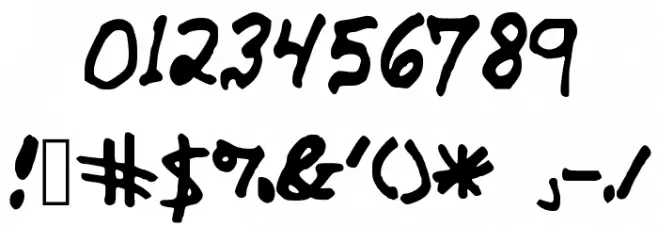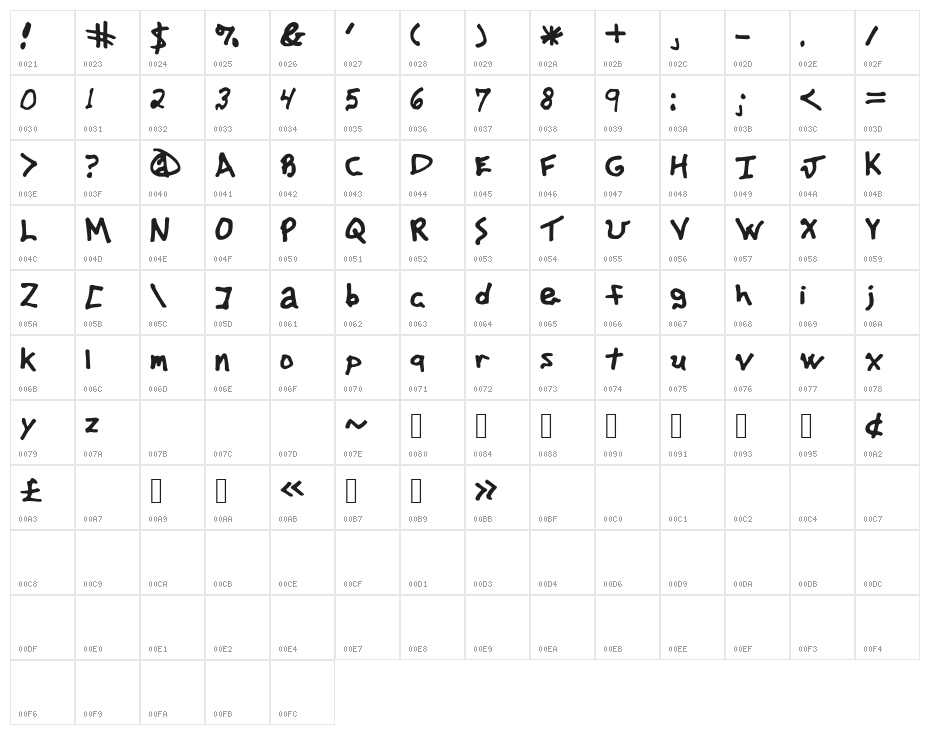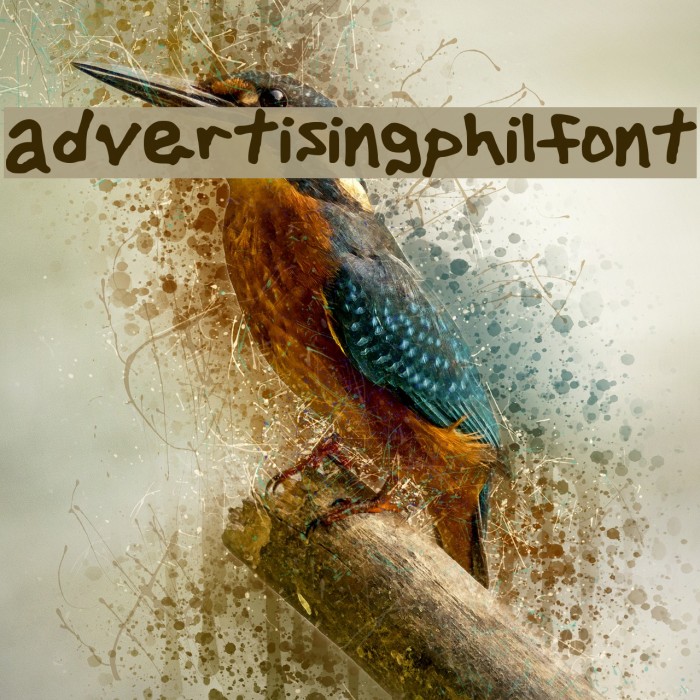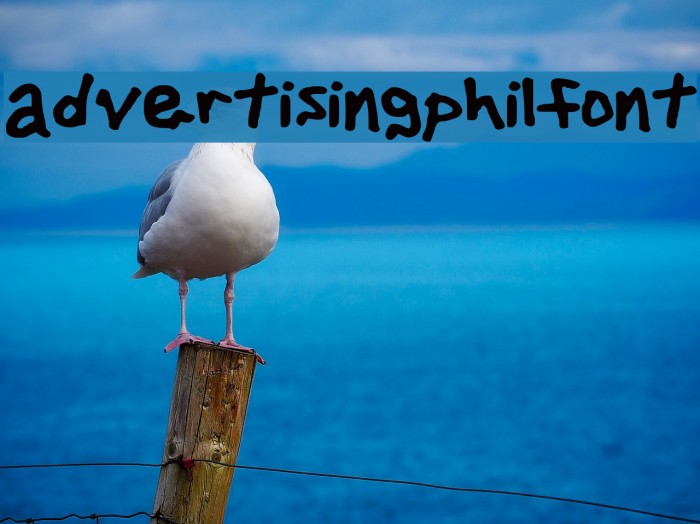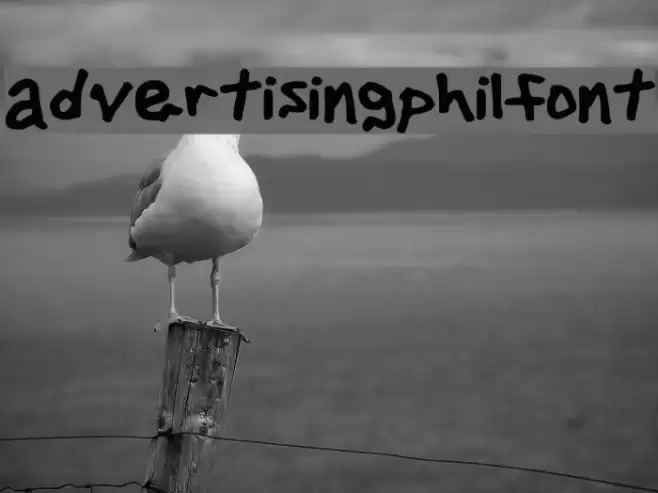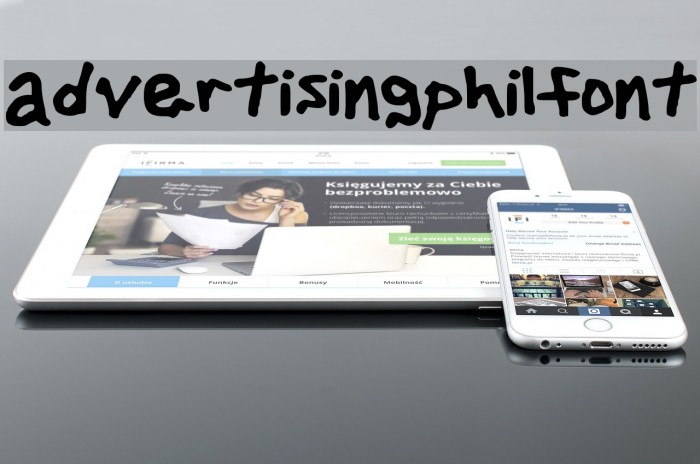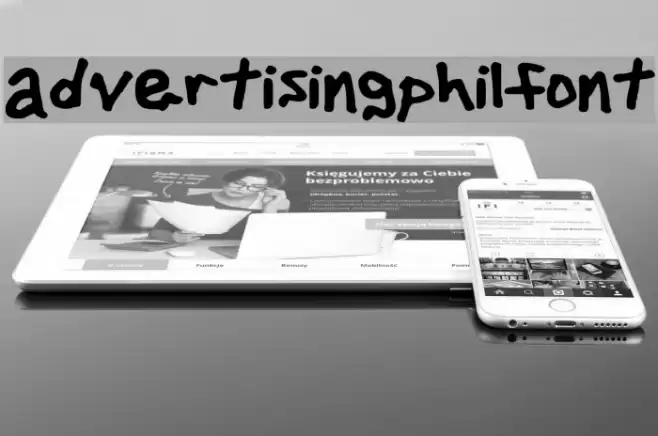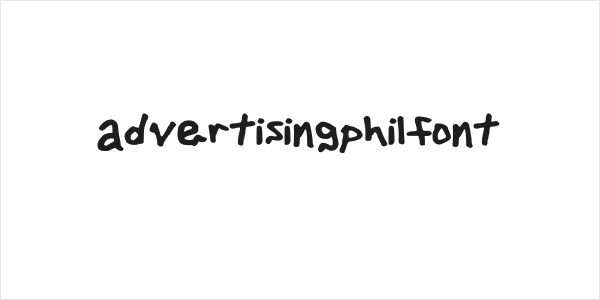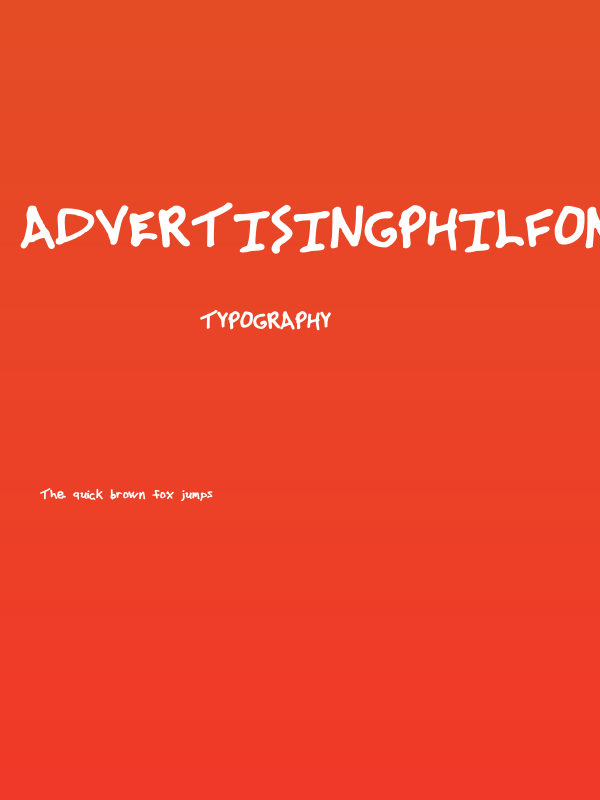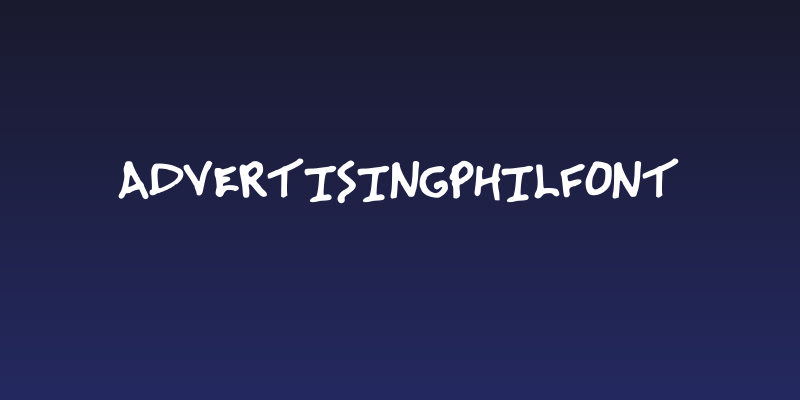
advertisingphilfont Font
advertisingphilfont Description
This font features a playful and informal handwritten style, characterized by its bold and slightly irregular strokes. Each letter has a unique, organic feel, with varying thickness that adds to its casual charm. The uppercase and lowercase letters maintain a consistent style, with rounded edges and a slight slant, giving the impression of a personal touch. The numerals and special characters follow the same aesthetic, ensuring a cohesive look across all text elements. This font's lively and approachable nature makes it suitable for projects that aim to convey friendliness and creativity.